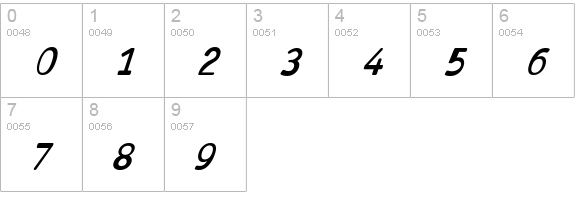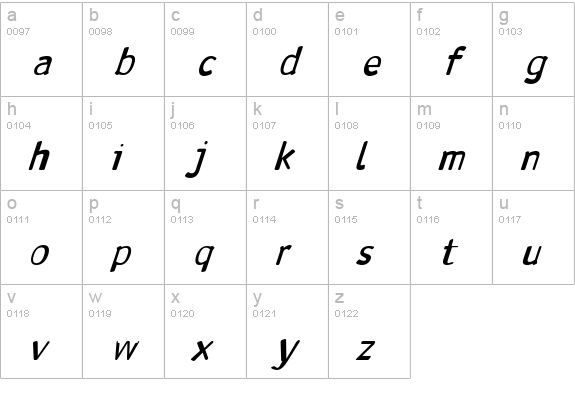
Antaviana BoldItalic Font Details
Antaviana BoldItalic font is a beautifully crafted typeface that exudes elegance and sophistication. With its bold yet graceful curves, this font is perfect for conveying a sense of style and luxury in your design projects. Whether you're creating branding materials, invitations, or editorial layouts, Antaviana BoldItalic will make a statement. The unique italic style adds a touch of flair and personality to your text, making it stand out from the crowd. The font's versatility allows it to be used in a variety of design contexts, from fashion magazines to high-end packaging. Best of all, Antaviana BoldItalic is available for free download at FontsMarket.com. This means you can easily access this stunning font and incorporate it into your projects without any cost. Don't miss out on the opportunity to elevate your designs with the timeless beauty of Antaviana BoldItalic font. Download it now and see the difference it can make!